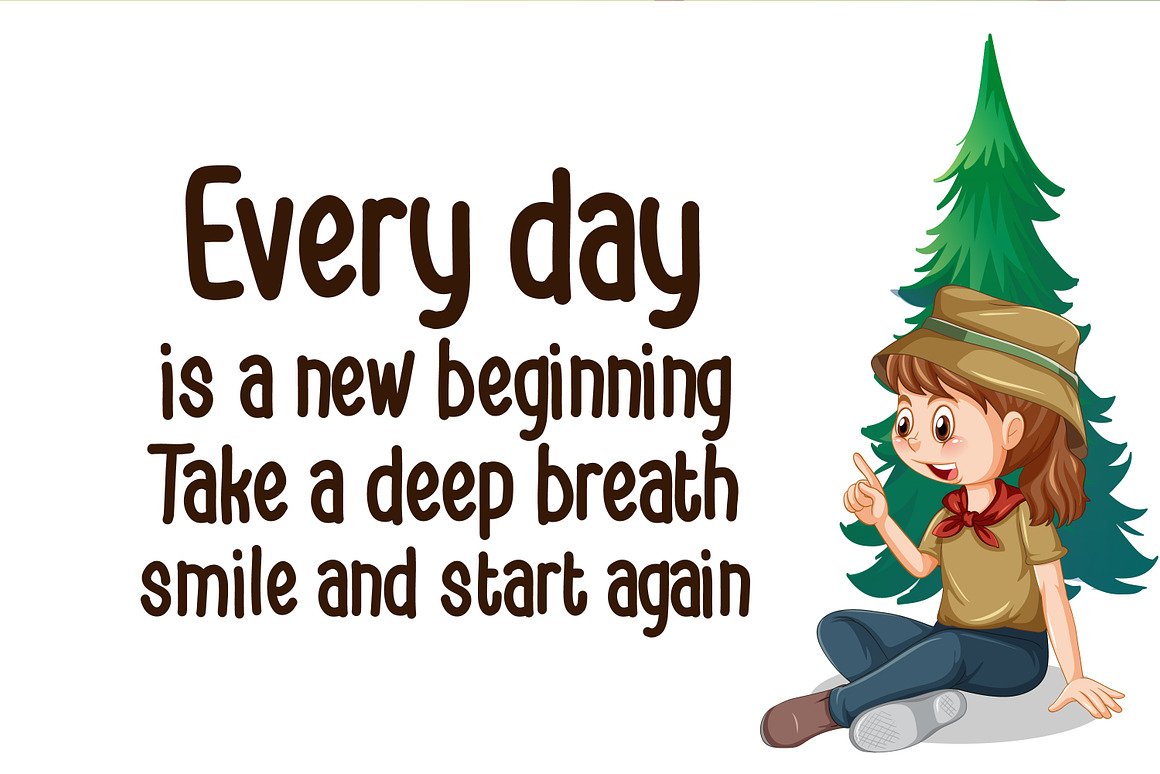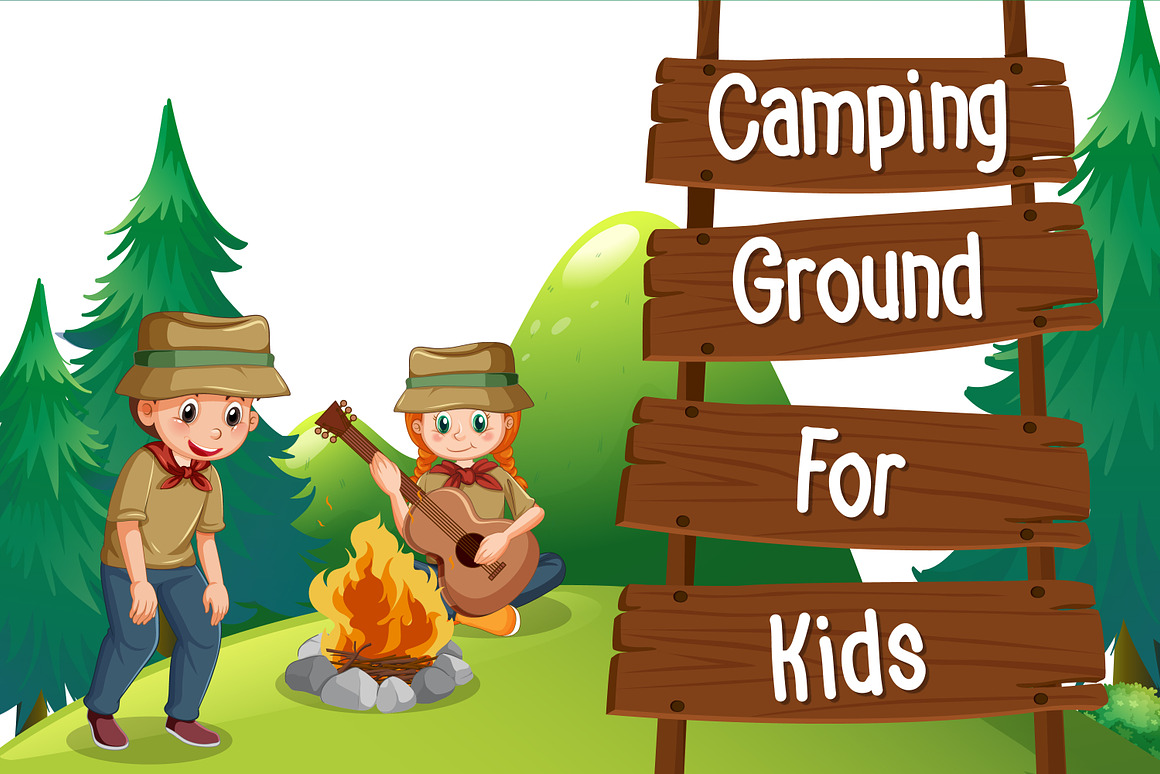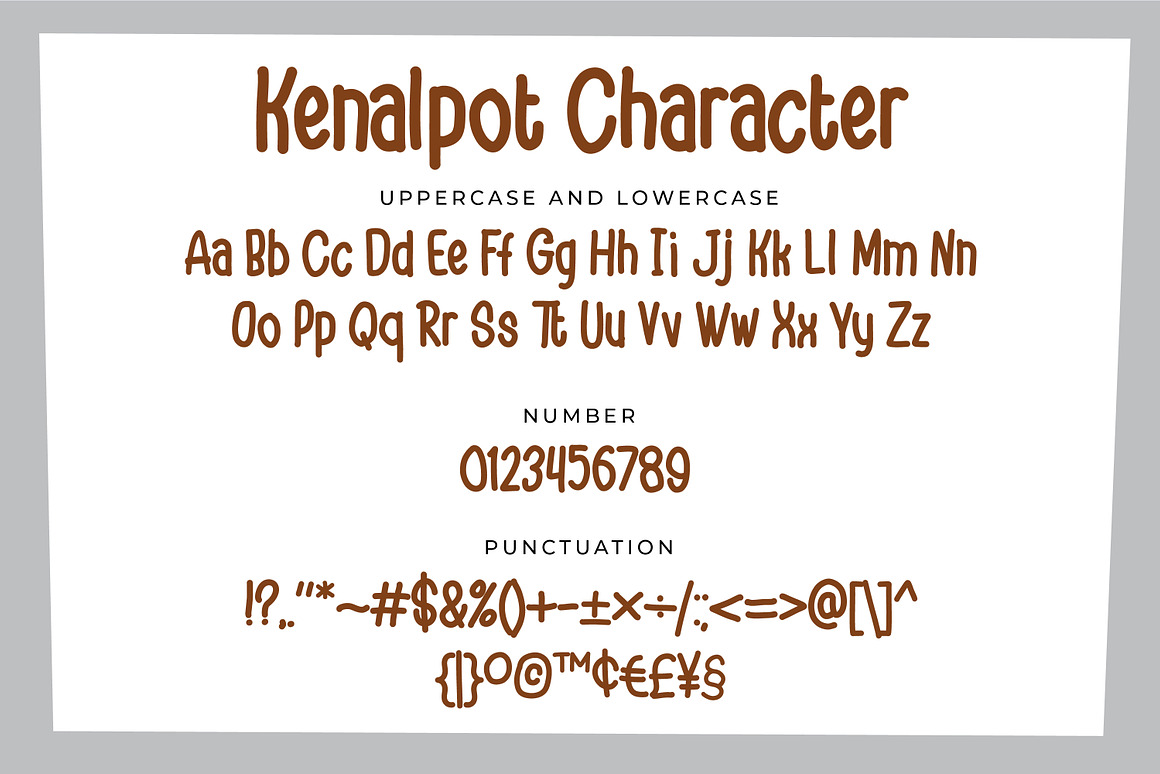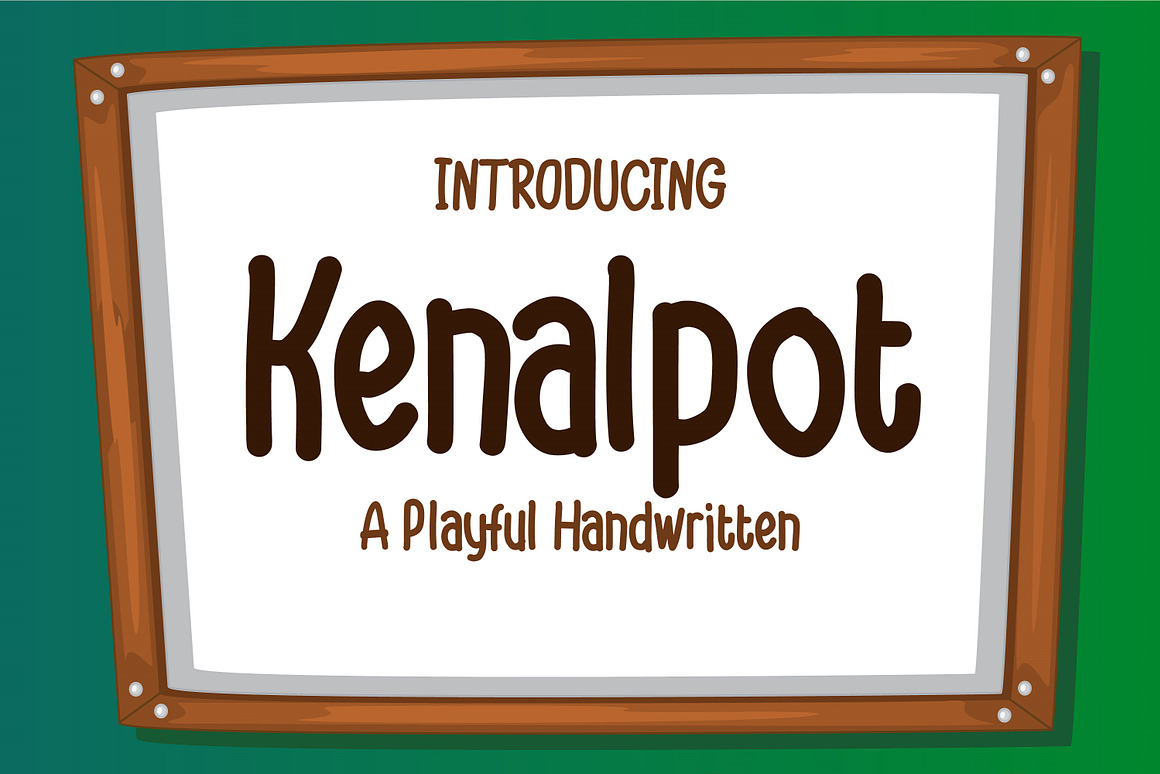
Kenalpot Playful Handwritten Font
Introducing Kenalpot Vibrant handwritten font that captures the essence of authenticity and creativity! With its playful loops and unique flair, Kenalpot adds a personal touch to your designs, making it perfect for everything from branding and packaging to invitations and social media posts.